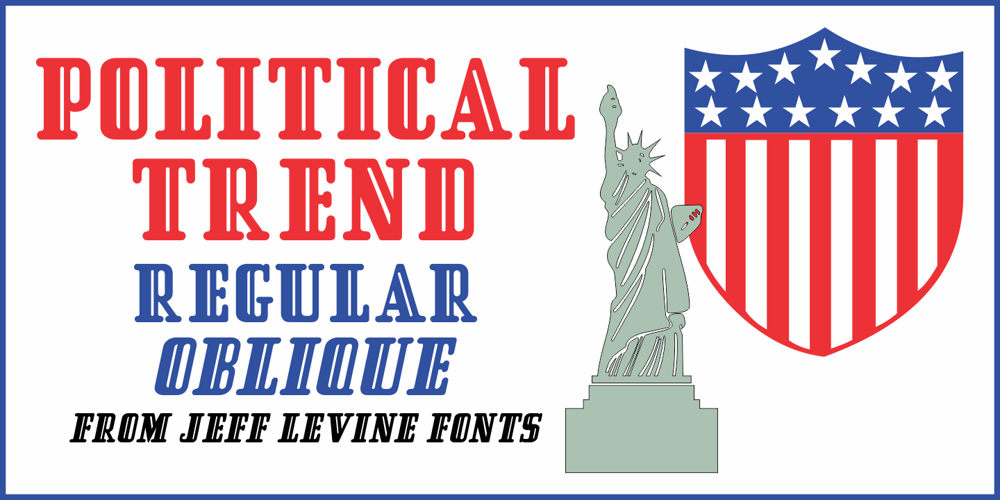
Political Trend JNL Font Family was designed by Jeff Levine and published by Jeff Levine. Political Trend JNL contains 2 styles and family package options. An ad in the May 27, 1939 issue of “Motion Picture Herald” for the film “Young Mr. Lincoln” featured the film’s title hand lettered in a squared, bold pen lettering with rounded terminals along with an incised ‘engraving’ line.This formed the basis for Political Trend JNL, which available in both regular and oblique versions.